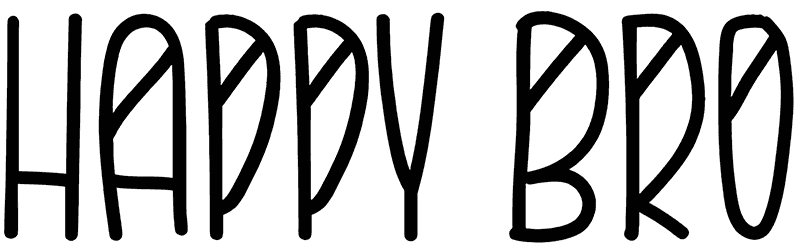
Happy Bro Font
To create an adorable design, you can choose a cute and realistic doodle font like this one. Happy Bro font has a minimal and tall form that can be interesting for a lot of people. Create a toy branding logo or any creative design that you want with this fun font and amaze your followers.